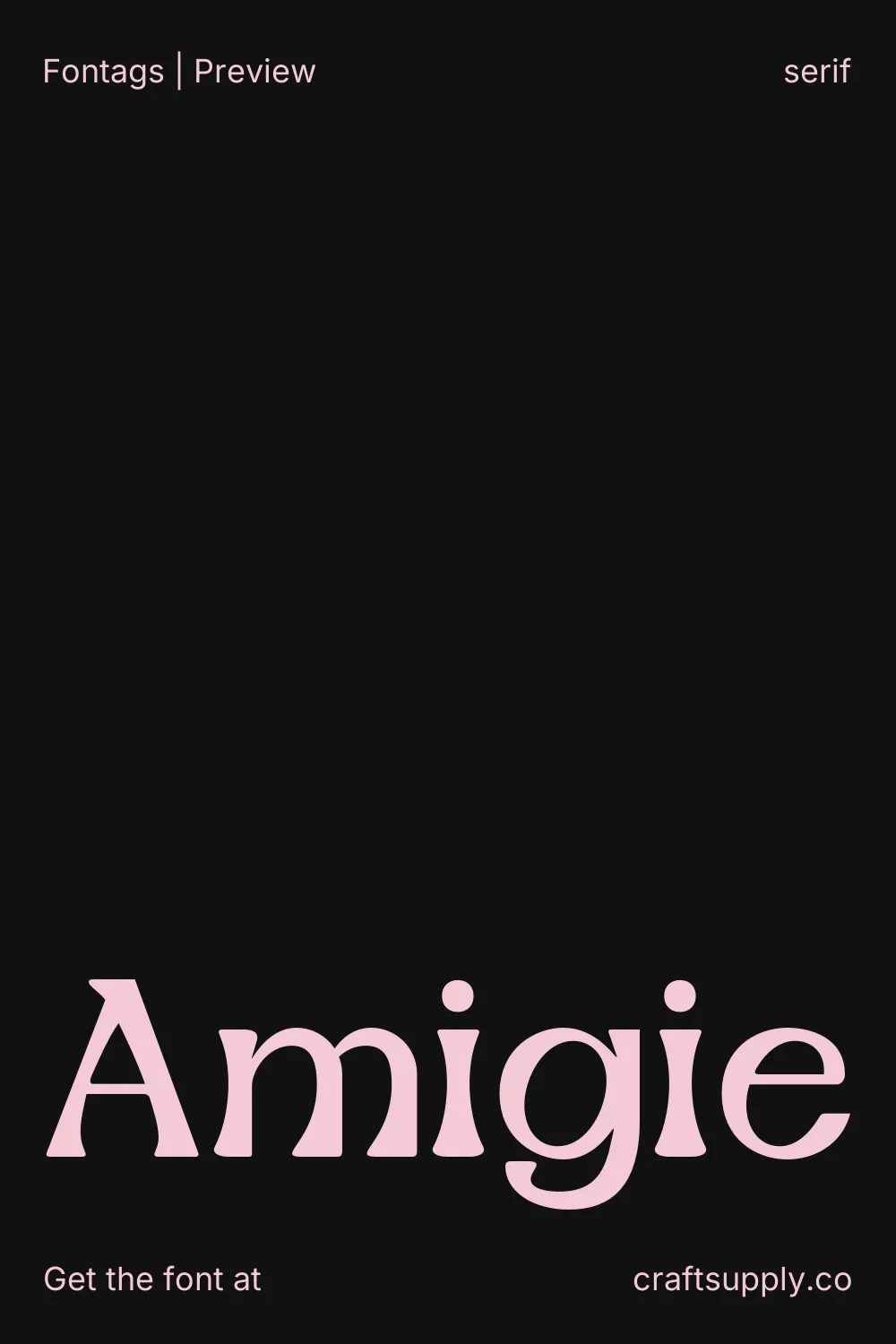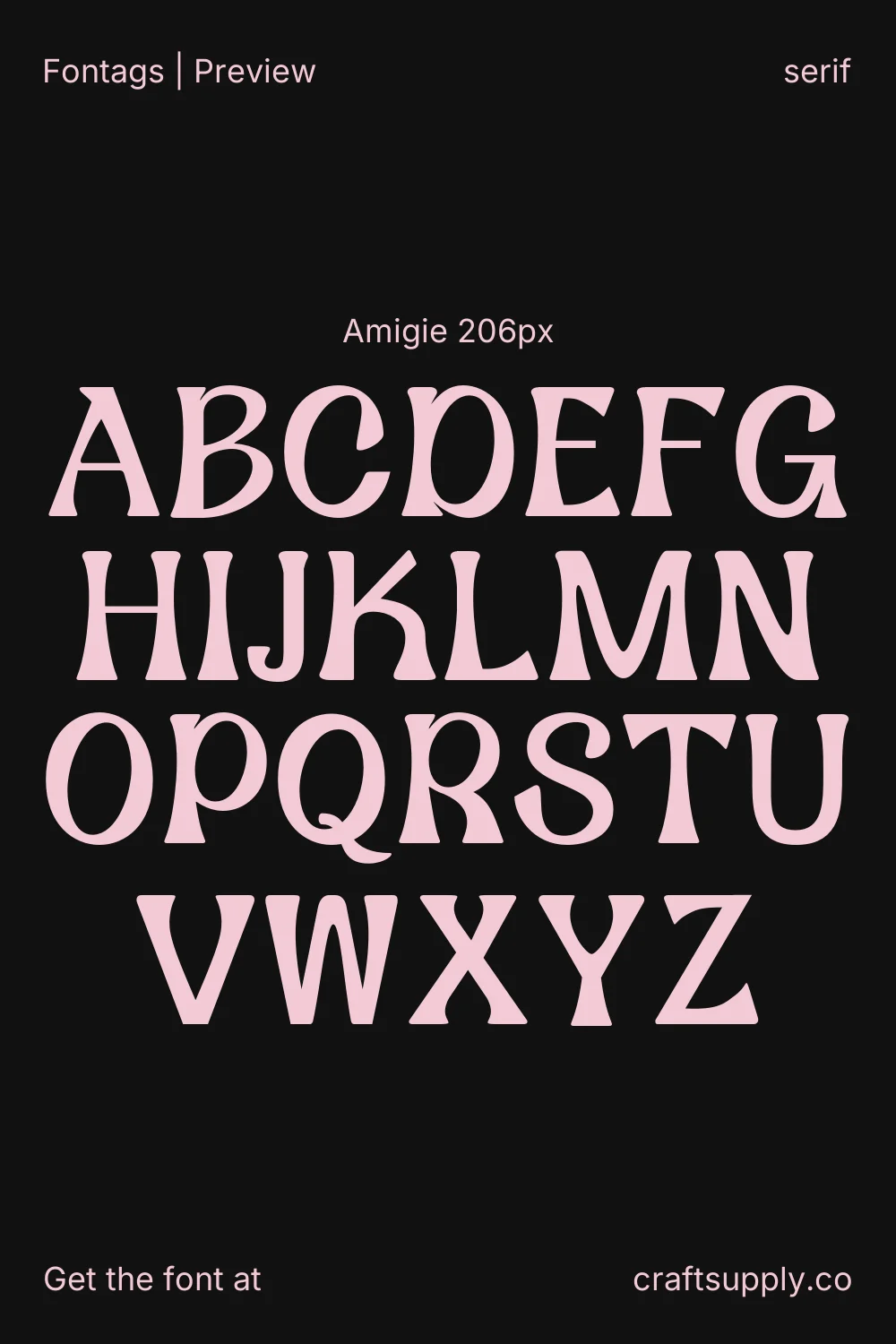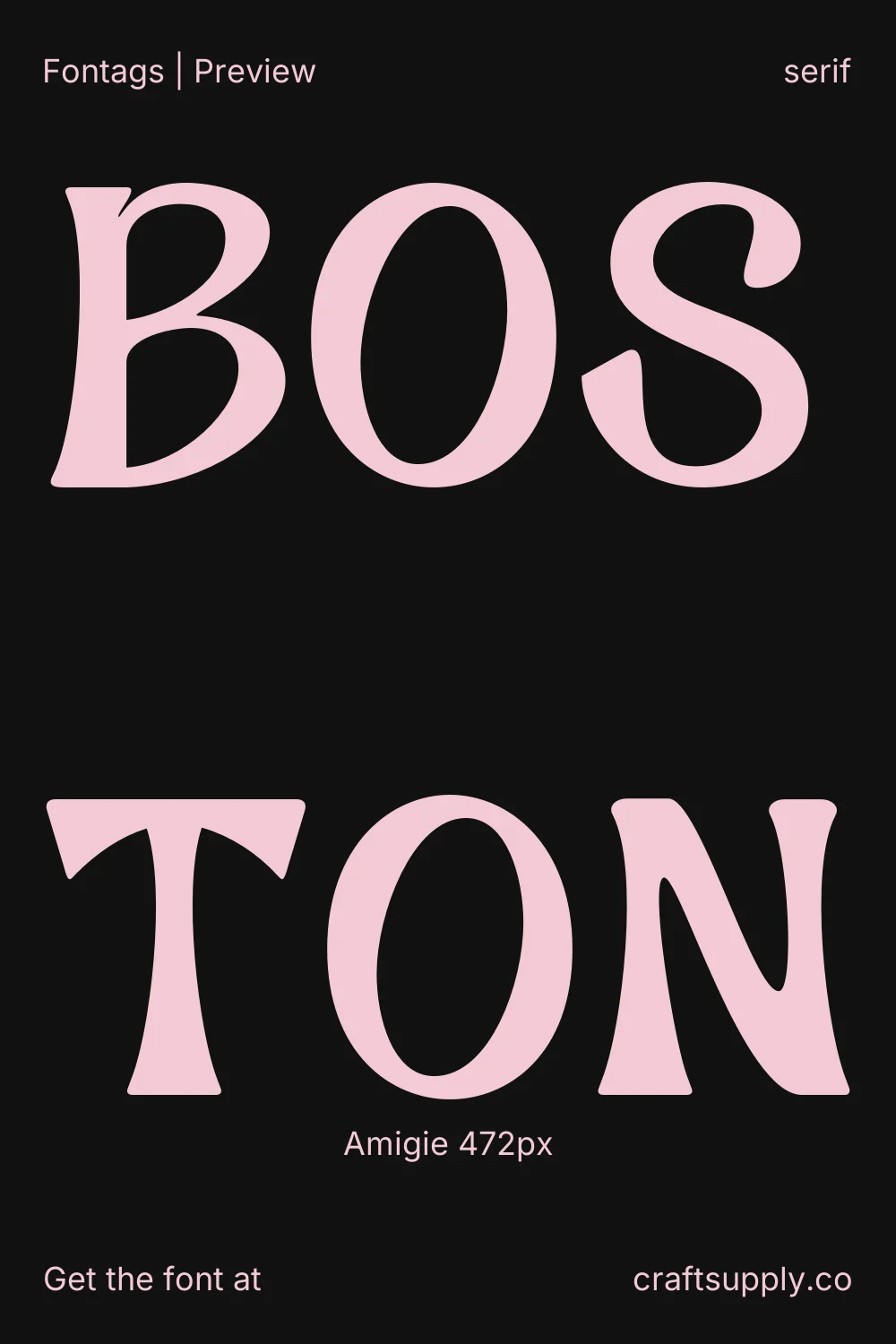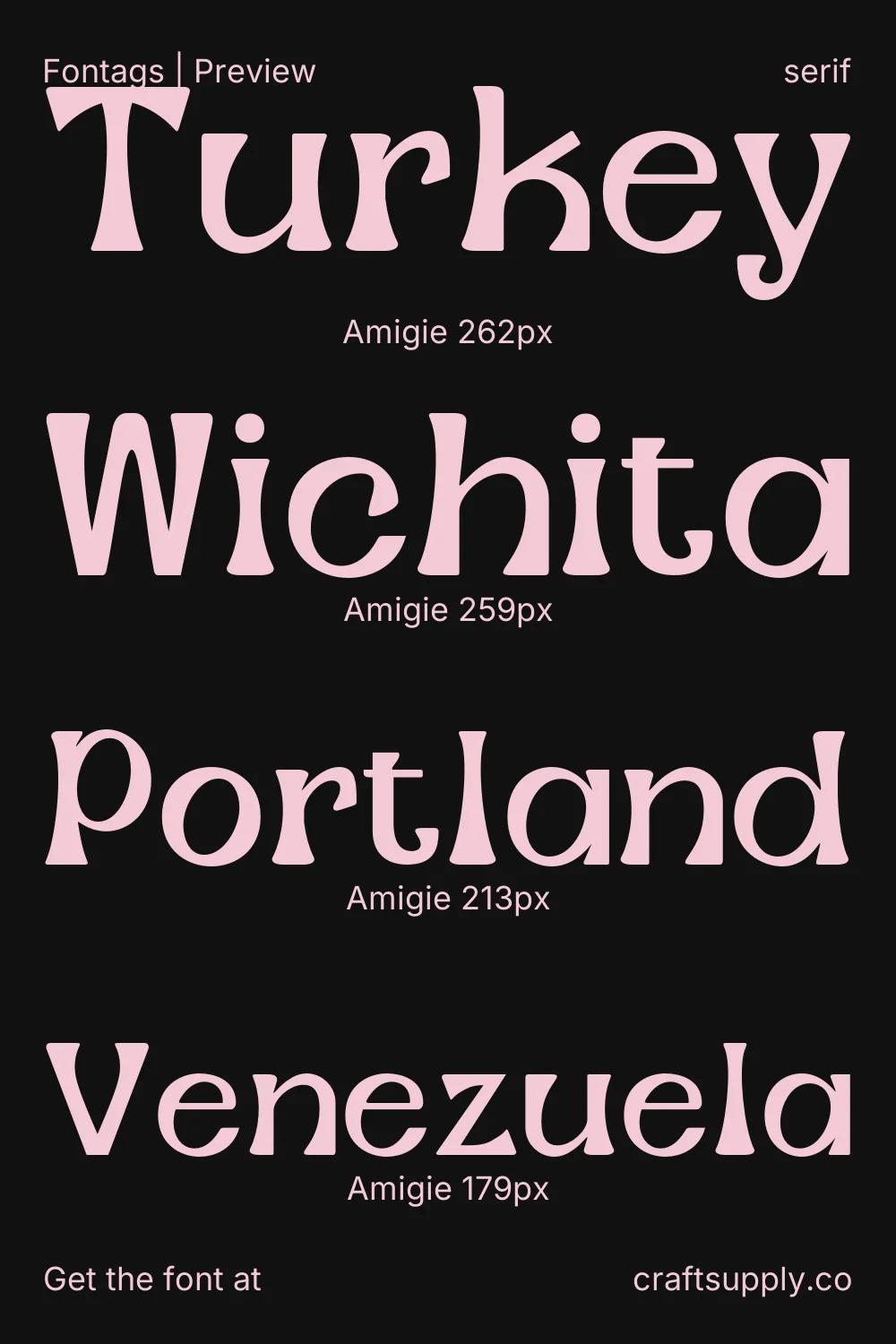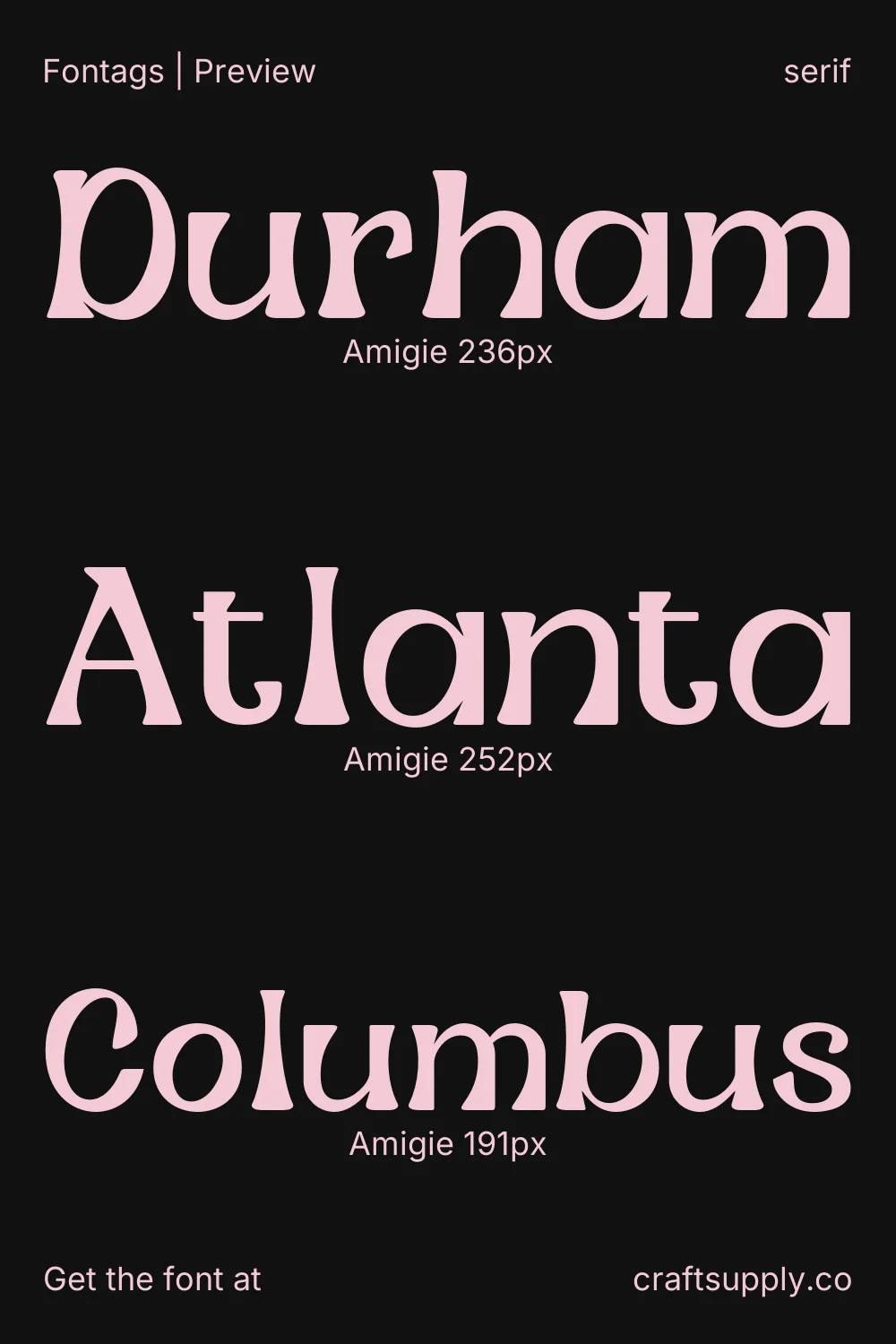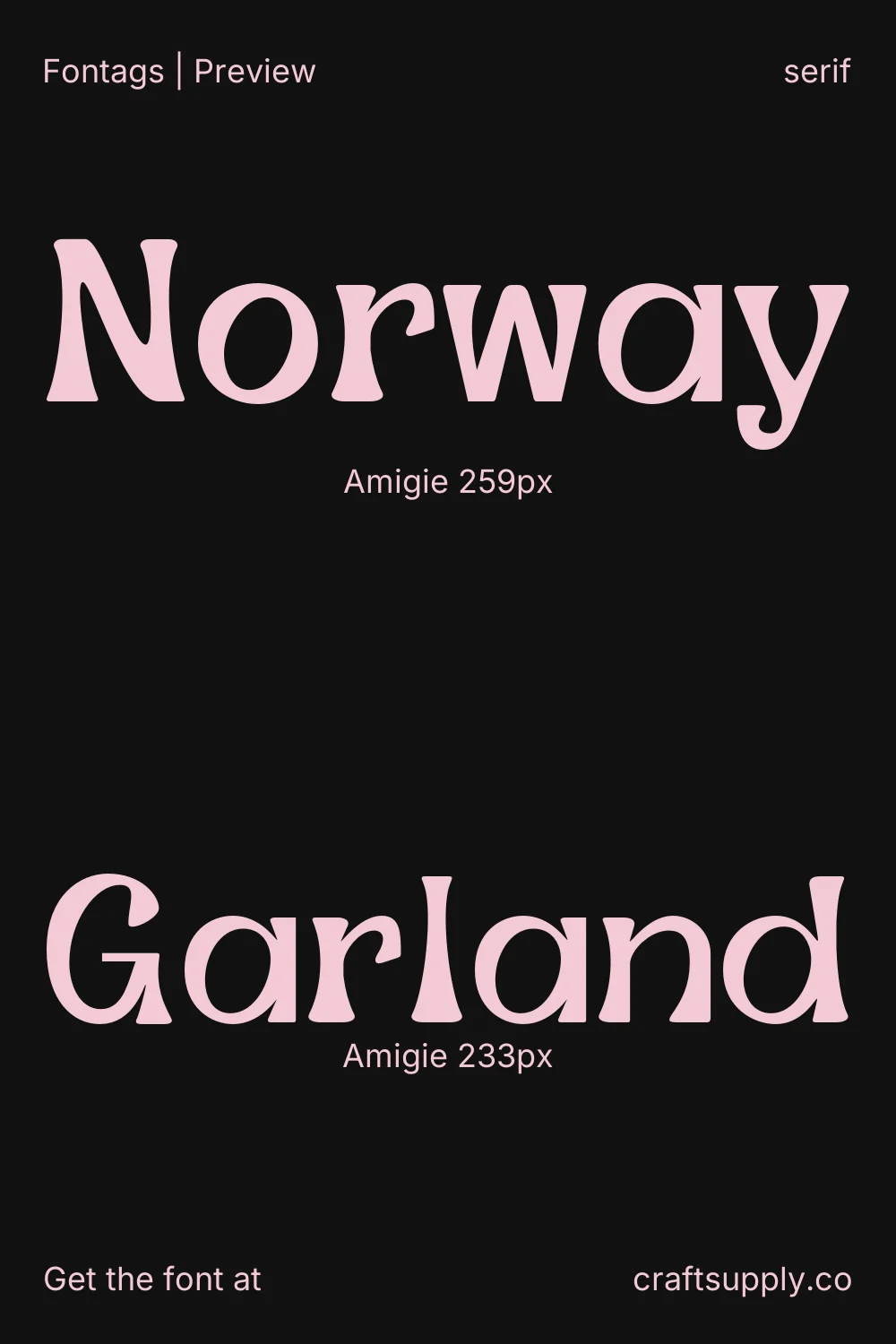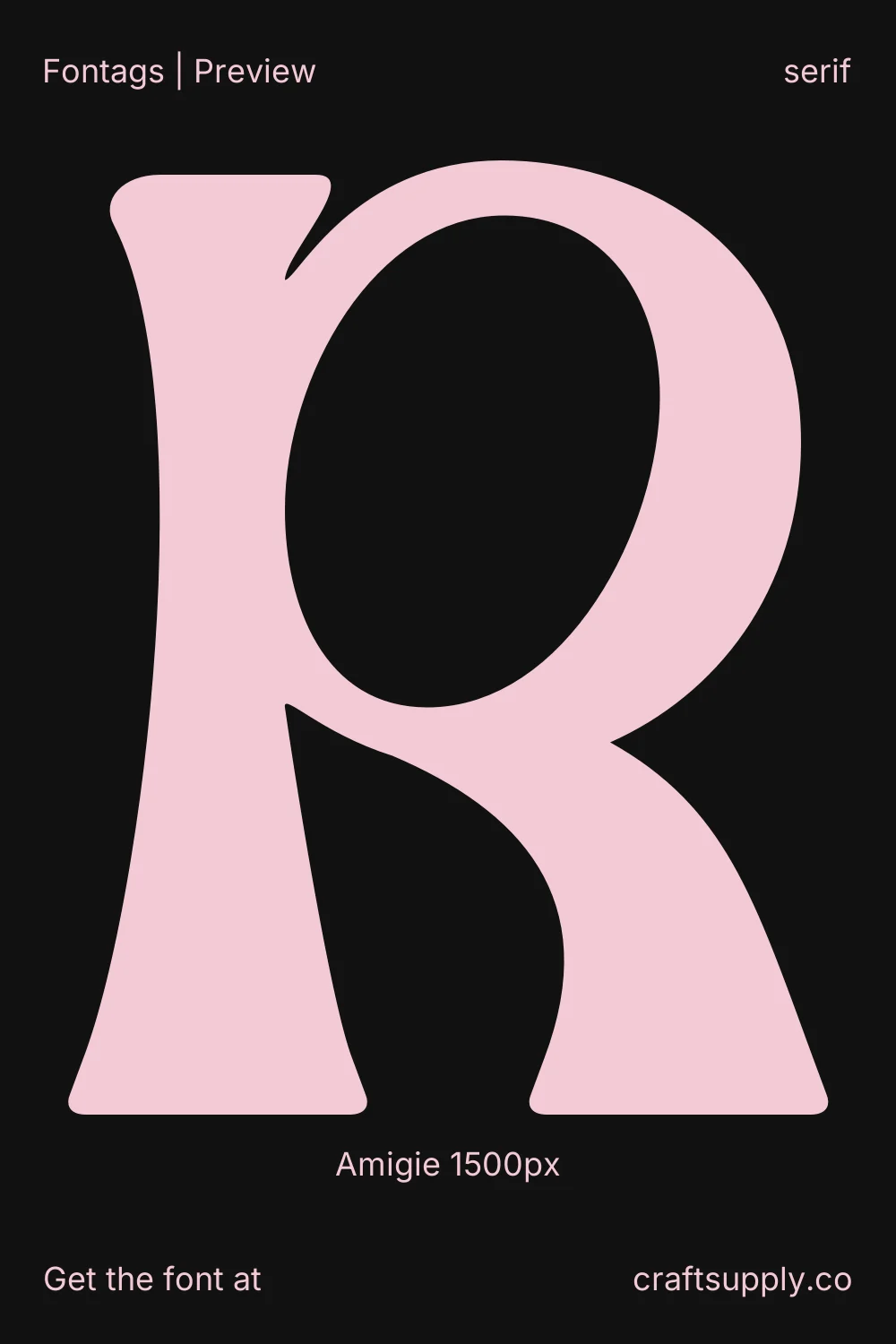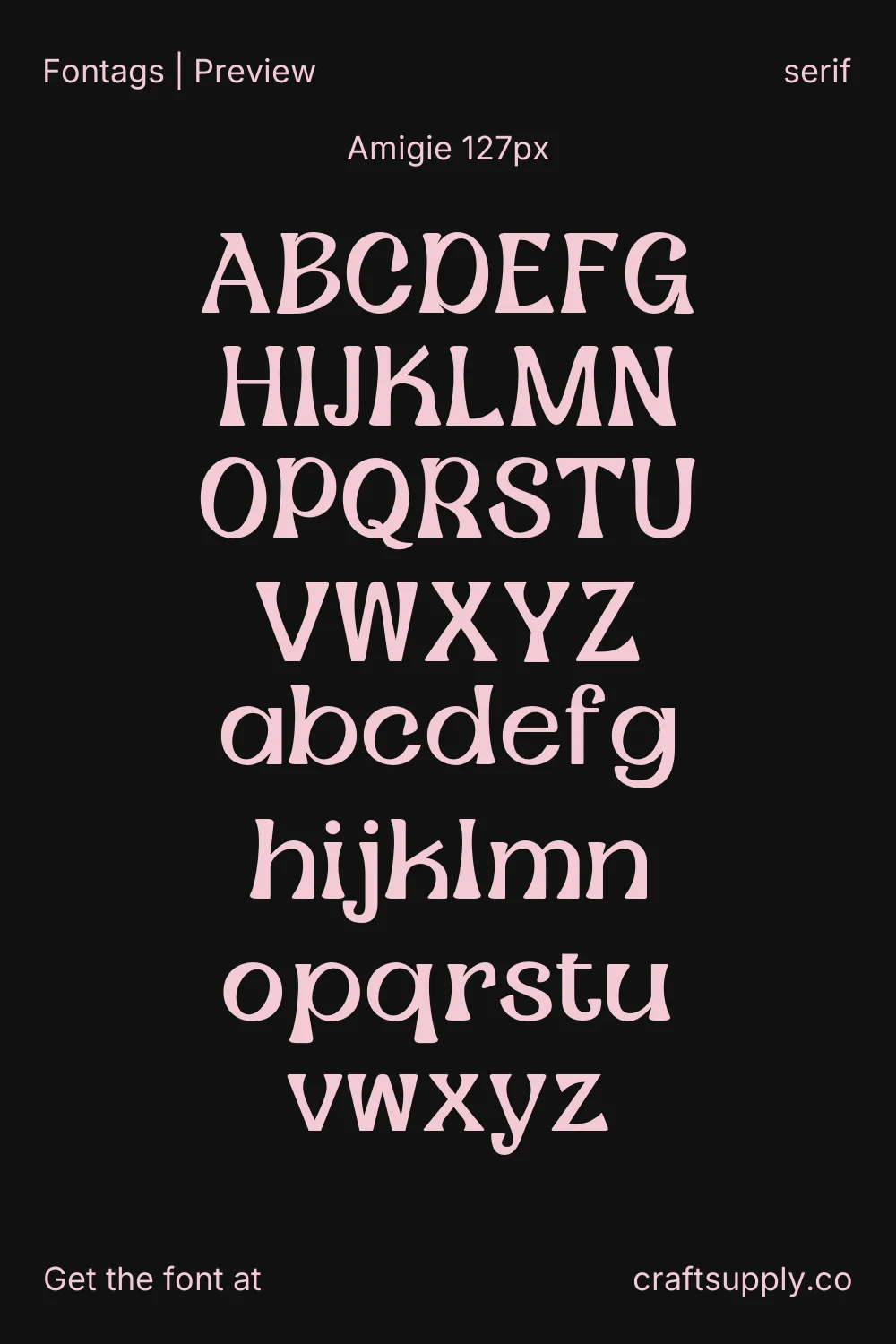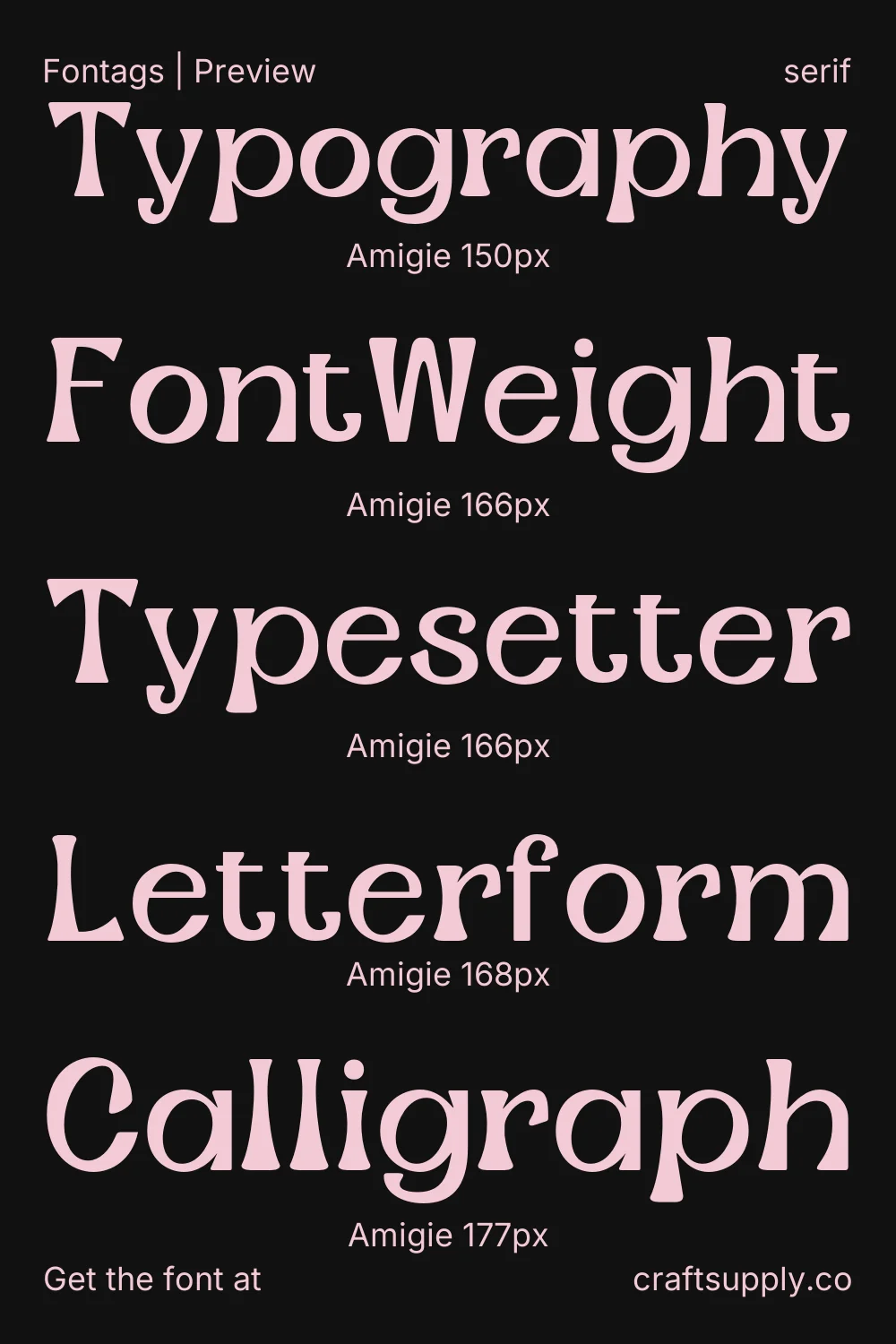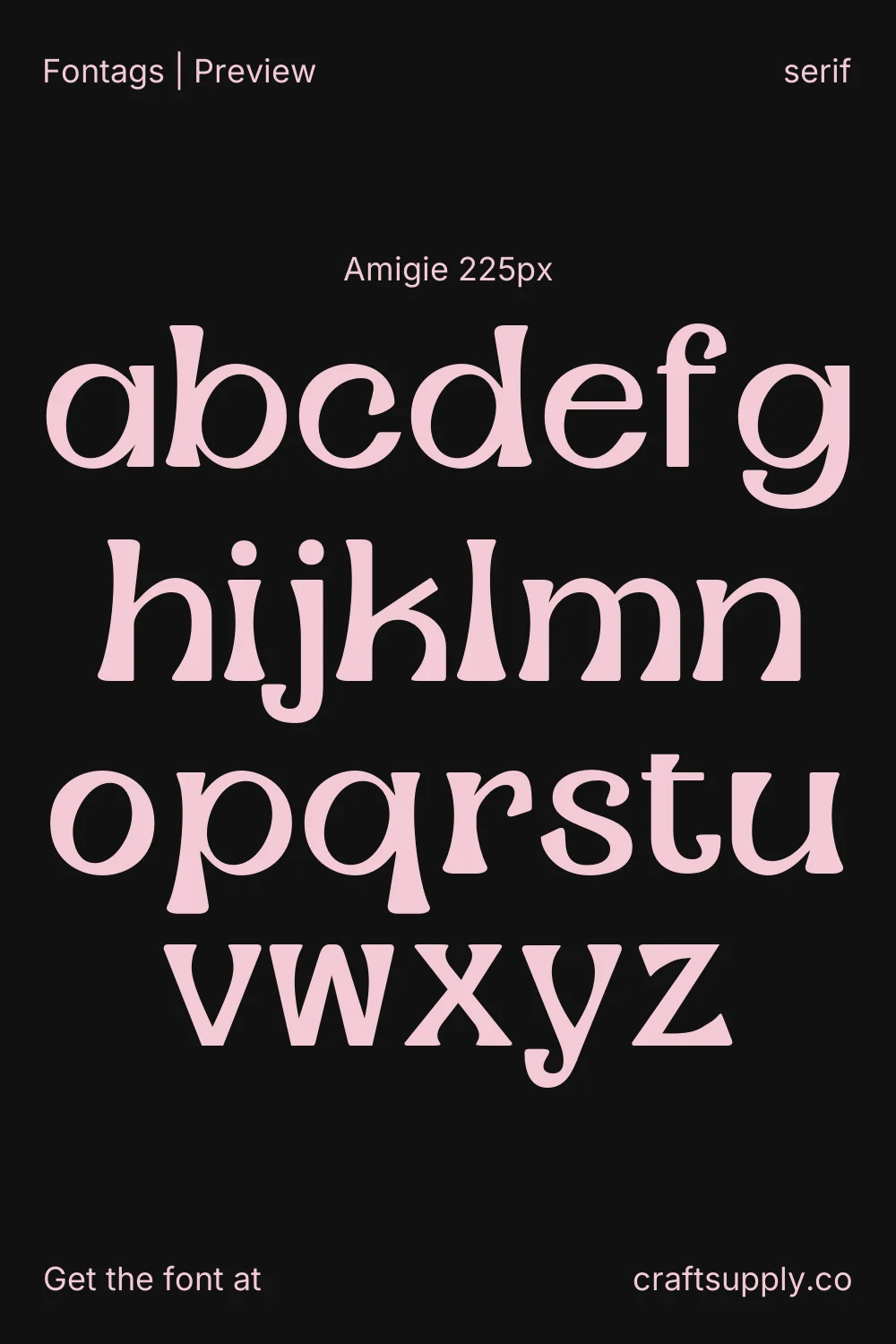
Amigie
Amigie is a bold and distinctive display serif typeface that blends classic elegance with modern creativity. Its unique serif shapes and sharp, clean lines make it ideal for eye-catching headlines, branding, logos, and packaging.